1. Audigia Font
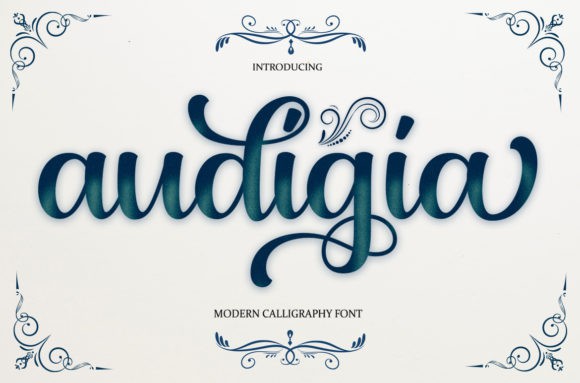
Audigia is a gorgeous and bold handwritten font, crafted to give your headlines and logotype projects a stylish touch. This font reads strong, confident, and dynamic and can add tons of nostalgic character to your designs.
2. Story Love Font
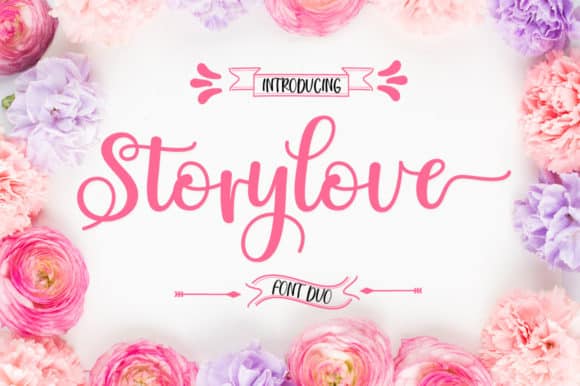
Story Love is a delicate duo font (sans serif and script). Incredibly adaptable, this font fits a wide pool of designs, elevating them to the highest levels. Story Love is PUA encoded which means you can access all of the glyphs and swashes with ease!
3. Lightover Font
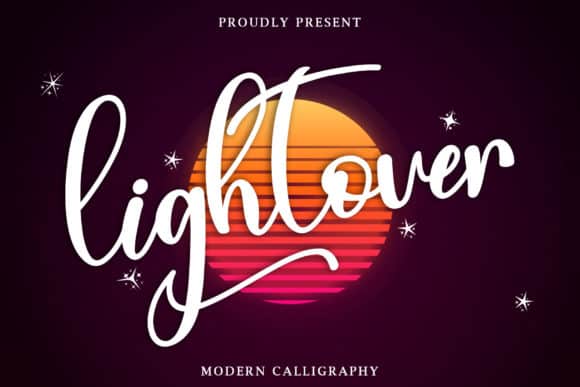
Lightover is a modern handwritten font. Lightover will look outstanding in any context, whether it’s being used on busy backgrounds or as a standalone headline!
4. Love Sunday Font
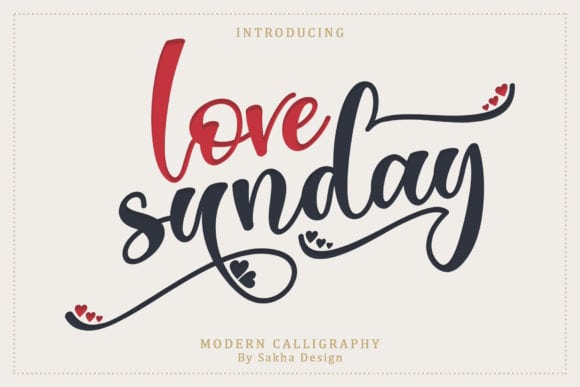
Love Sunday is a romantic and sweet calligraphy typeface with characters that dance along the baseline. It will add a luxury spark to any design project that you wish to create! Love Sunday is PUA encoded which means you can access all of the glyphs and swashes with ease!
5. Machiates Font
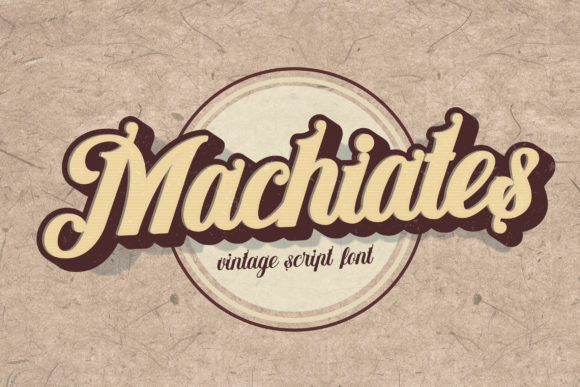
Machiates is a gorgeous and bold handwritten font, crafted to give your headlines and logotype projects a stylish touch. This font reads as strong, confident, and dynamic and can add tons of nostalgic character to your designs.
6. The Soulmate Font
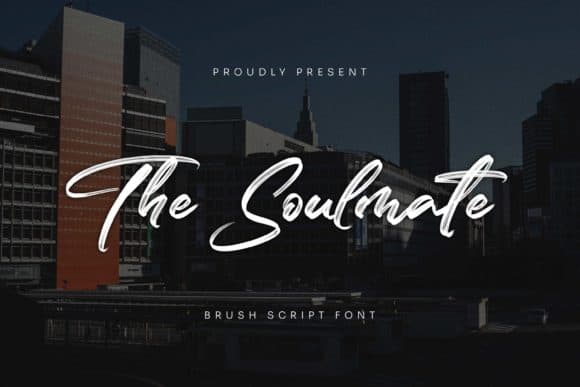
The Soulmate is a flowing handwritten font, described by an elegant touch, perfect for your favorite projects. Fall in love with its incredibly distinct and timeless style and use it to create spectacular designs!
7. Ballihay Font
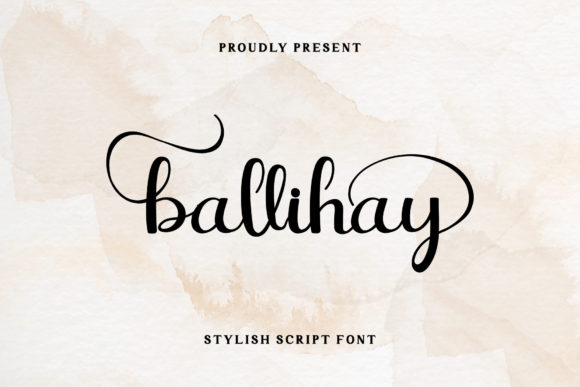
Ballihay is a delicate, elegant and flowing handwritten font. It has beautiful and well balanced characters and as a result, it matches a wide pool of designs. Add it confidently to your projects, and you will love the results.
8. Roman Fiction Font
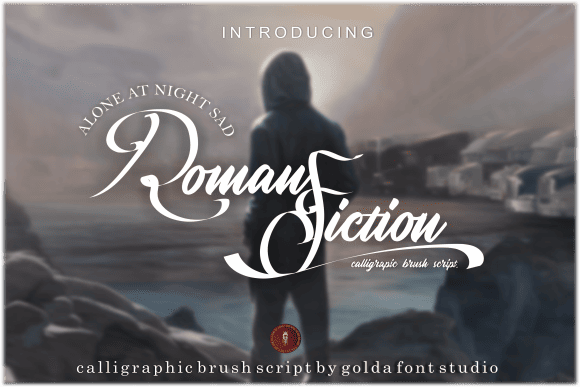
Roman Fiction is an elegant script font with a contemporary atmosphere and impeccable form, inspired by timeless classic calligraphy. Not too thin and not too thick, balanced and varied, this font was designed to enhance the beauty of your projects. This font is PUA encoded which means you can access all of the glyphs and swashes with ease!
9. Sahyan Maglin Font
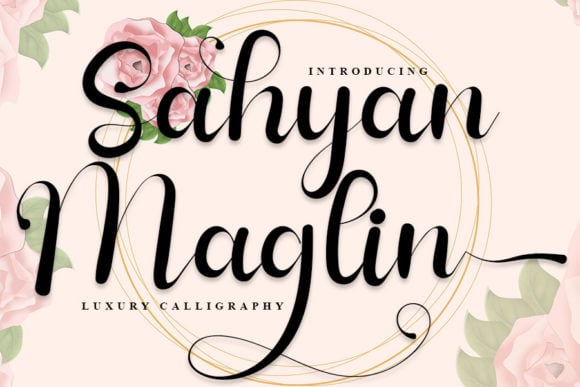
Sahyan Maglin is a beautiful and refined script font. It has a classy, elegant and modern look that can be used for logos, branding, invitations, stationery, wedding designs, social media posts, and much more! This font is PUA encoded which means you can access all of the glyphs and swashes with ease!
10. Shalleh - Arabic Style Font
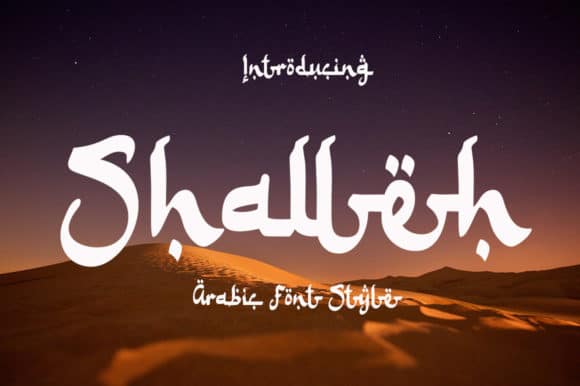
Shalleh is a bold script font, featuring an Arabic style. Expertly designed to make your creation look out of this world, this font will look gorgeous on a variety of ideas. Shalleh can be used for various purposes such as logos, wedding invitations, headings, t-shirts, letterhead, signage, labels, news, posters, badges and so much more.